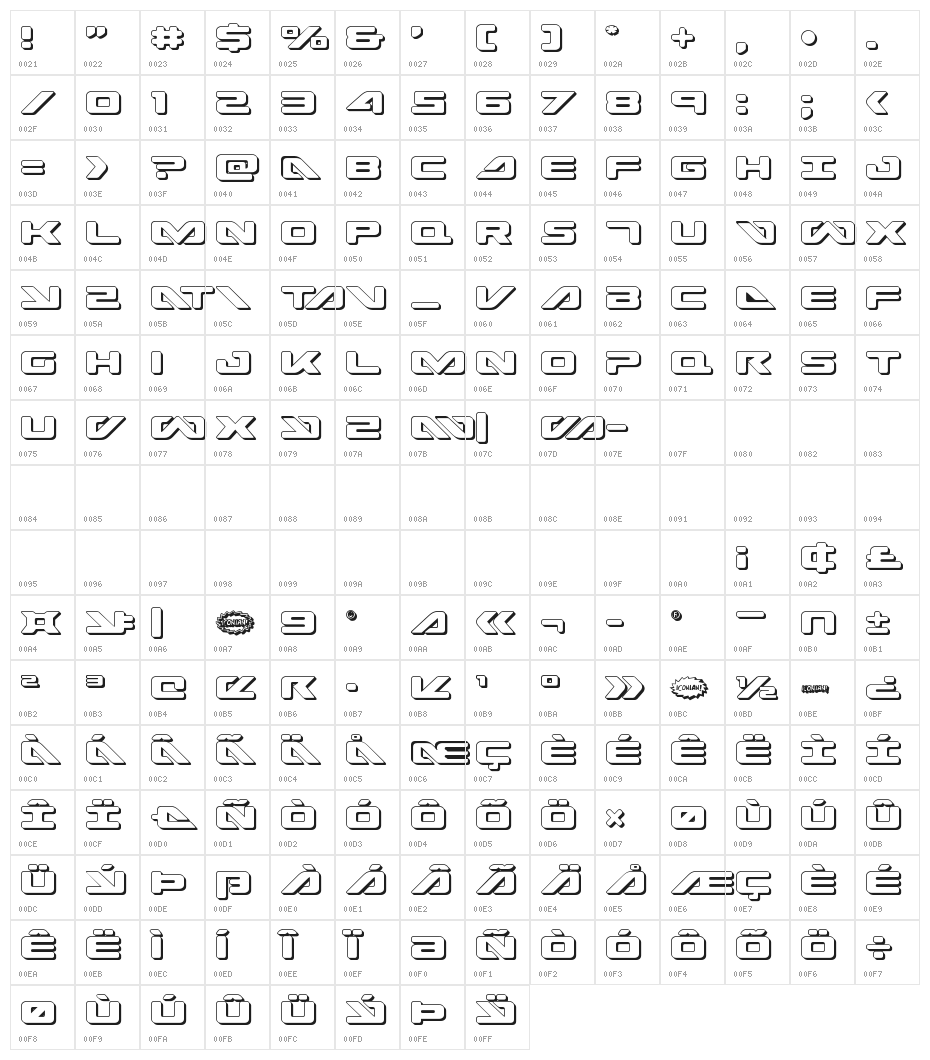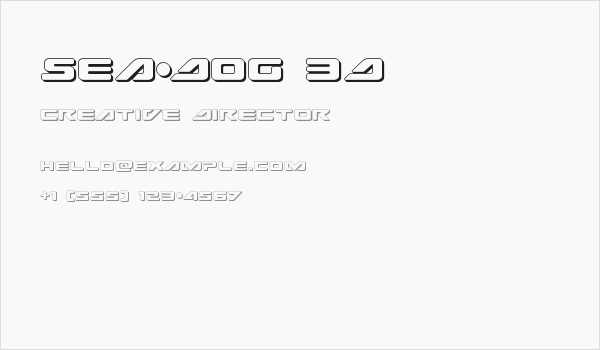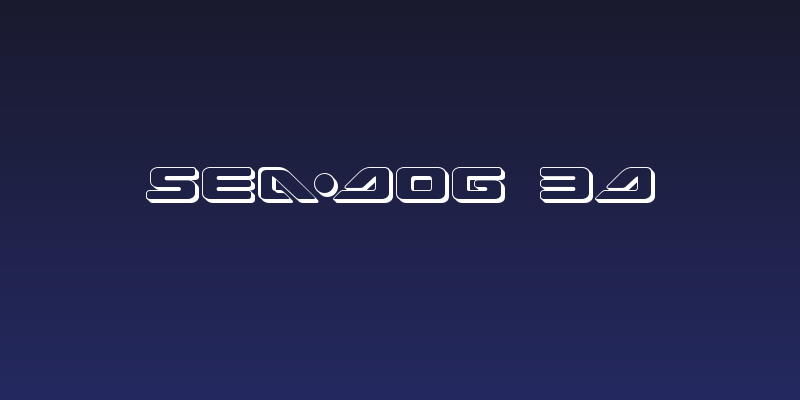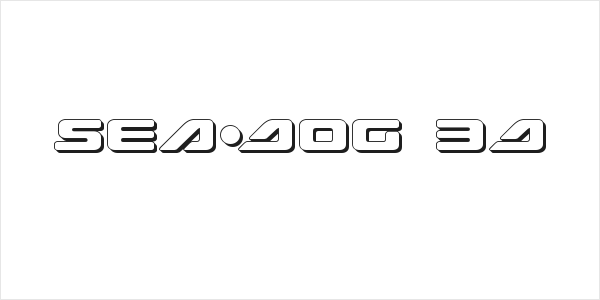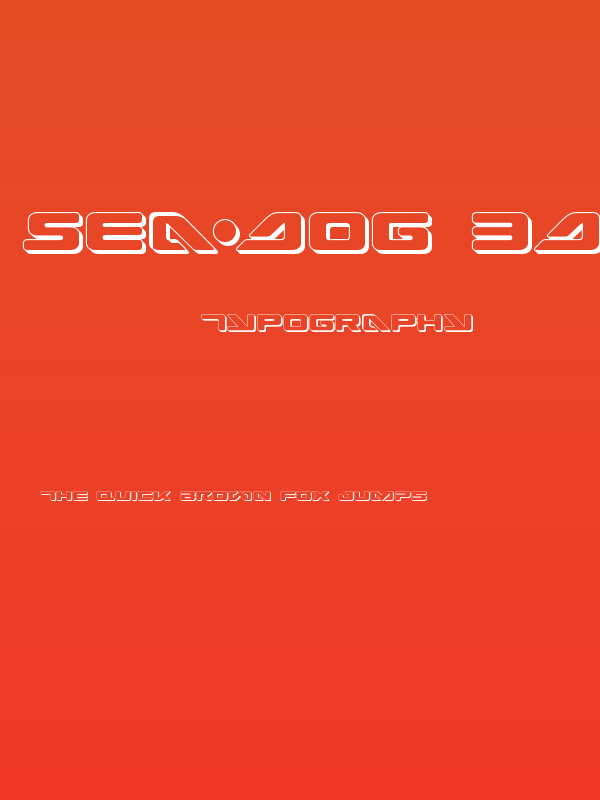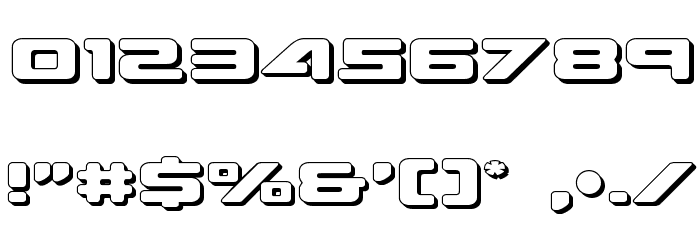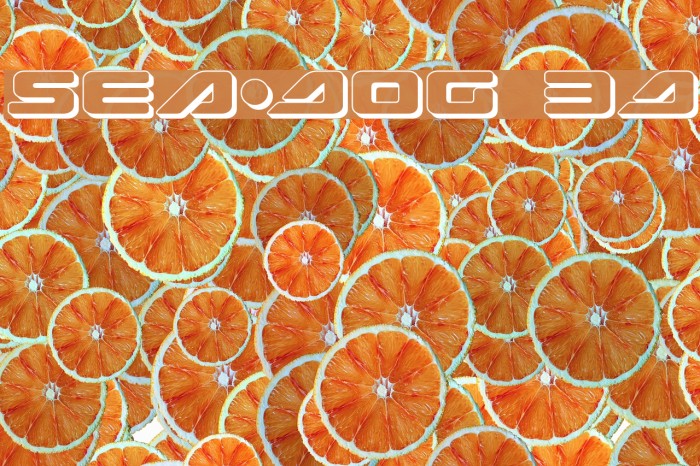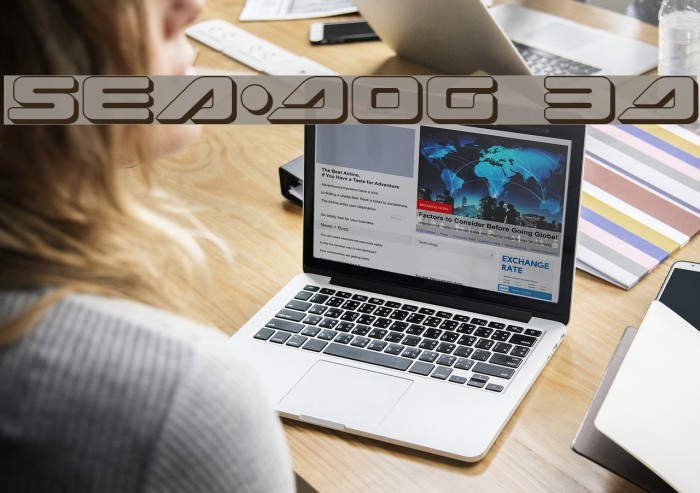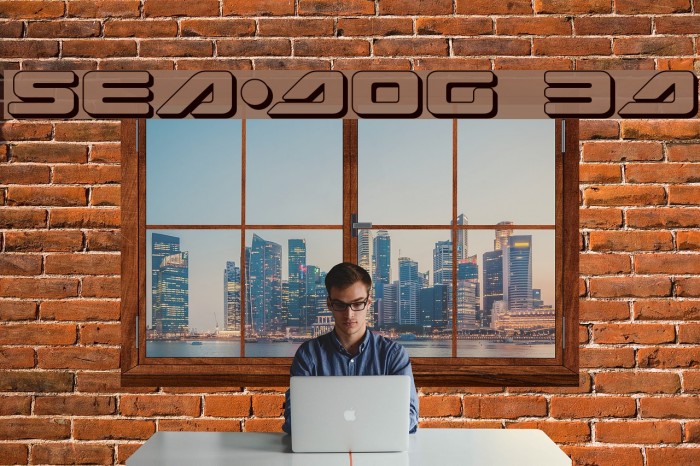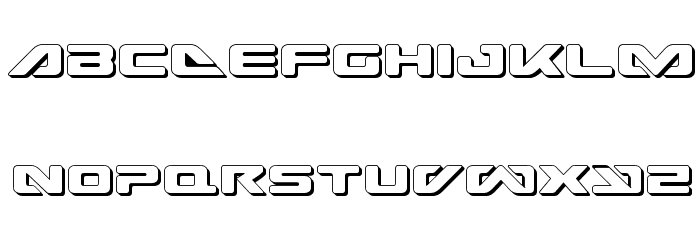
Sea-Dog 3D Font
This font features a bold, futuristic design with a three-dimensional effect. The characters are outlined, creating a hollow appearance that adds depth and dimension. The geometric shapes and angular lines give it a modern and tech-inspired look, making it ideal for projects that require a cutting-edge aesthetic. The uppercase and lowercase letters maintain a consistent style, with sharp edges and unique angles. Numbers and special characters are designed to match the overall theme, ensuring a cohesive visual experience.
| Proposed Projects | Ideal for sci-fi themed posters, video game titles, technology branding, and futuristic event invitations. |